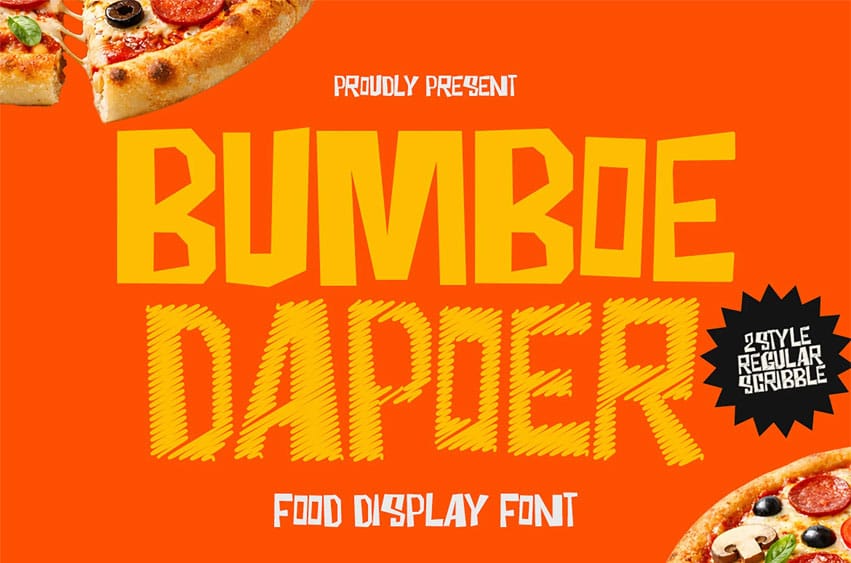
Bumboe Dapoer Font is a bold experimental display font that combines strong geometric shapes with a unique scribble texture style. Designed to stand out, this font delivers a raw, expressive, and energetic look that instantly captures attention.
Its distinctive hand-drawn texture adds character and depth, making it perfect for creative designs that need a bold and unconventional touch. Whether used for headlines or branding, Bumboe Dapper creates a dynamic and memorable visual impact.
Styles:
- Regular
- Scribble
Perfect For:
- Food branding
- Poster design
- Creative headlines
- Restaurant visuals
- Packaging design
- Street food branding
- Social media graphics
- Album covers
- Event posters
- Modern advertising